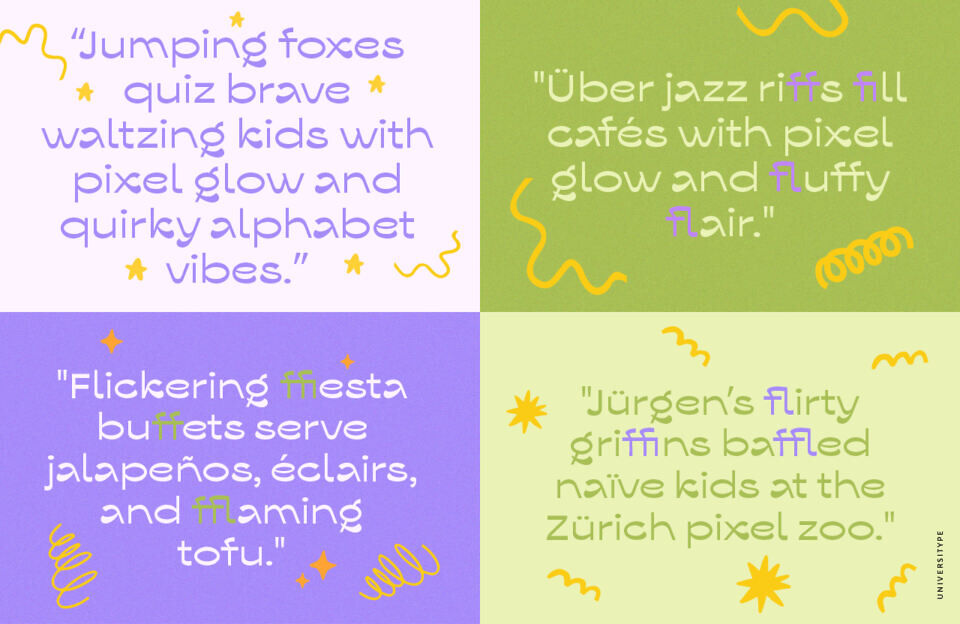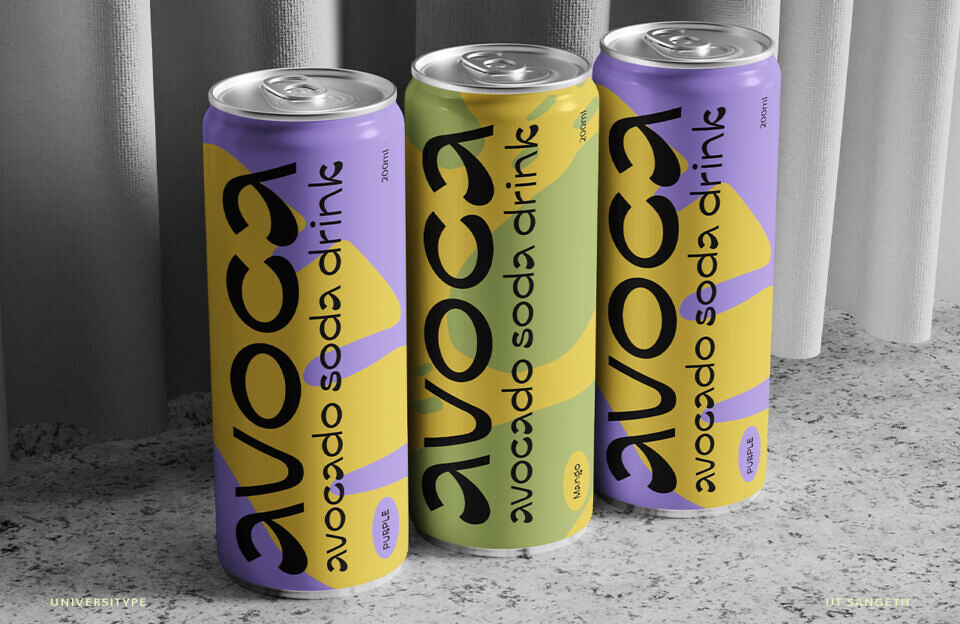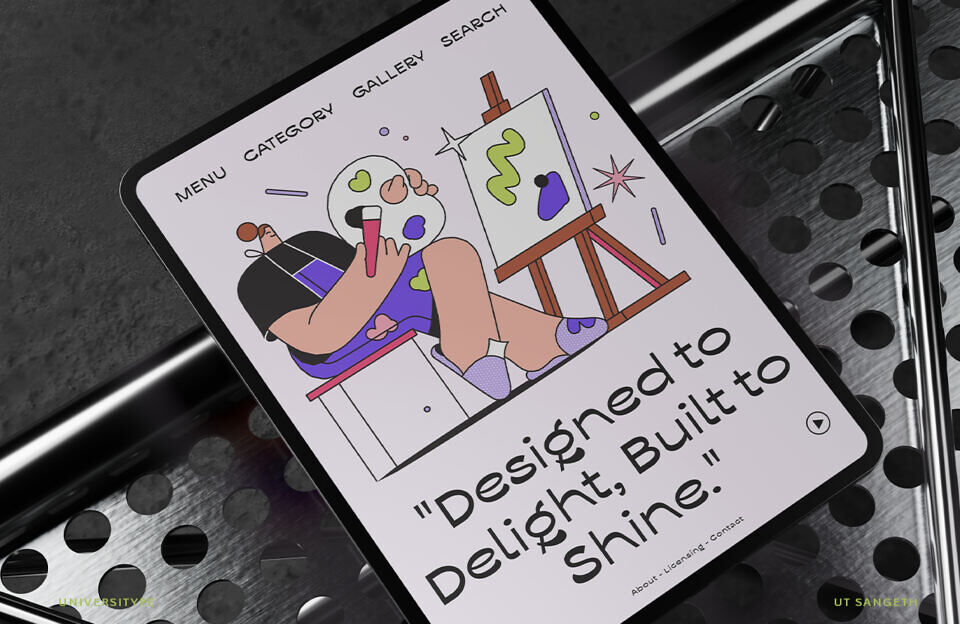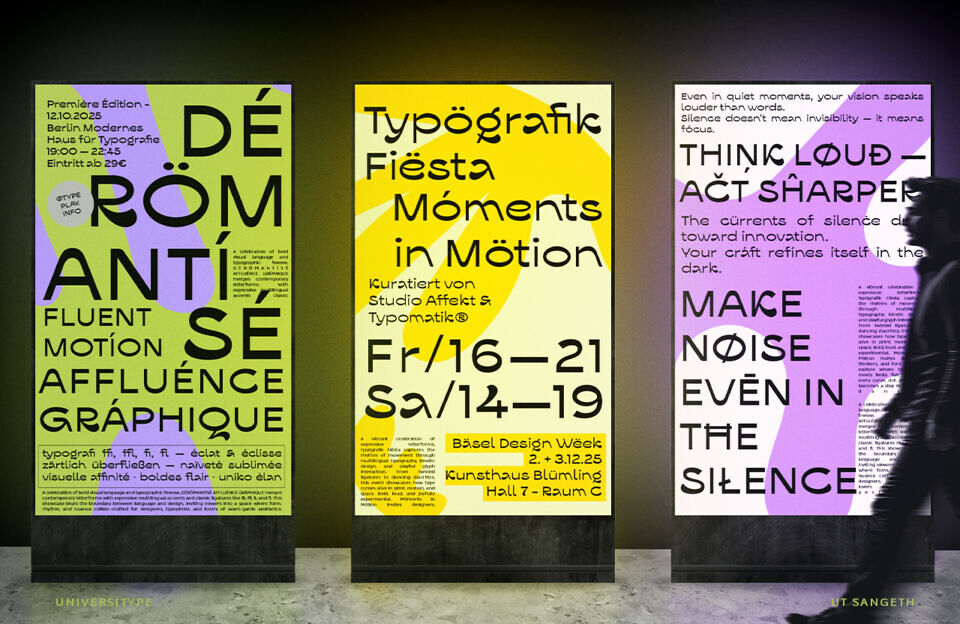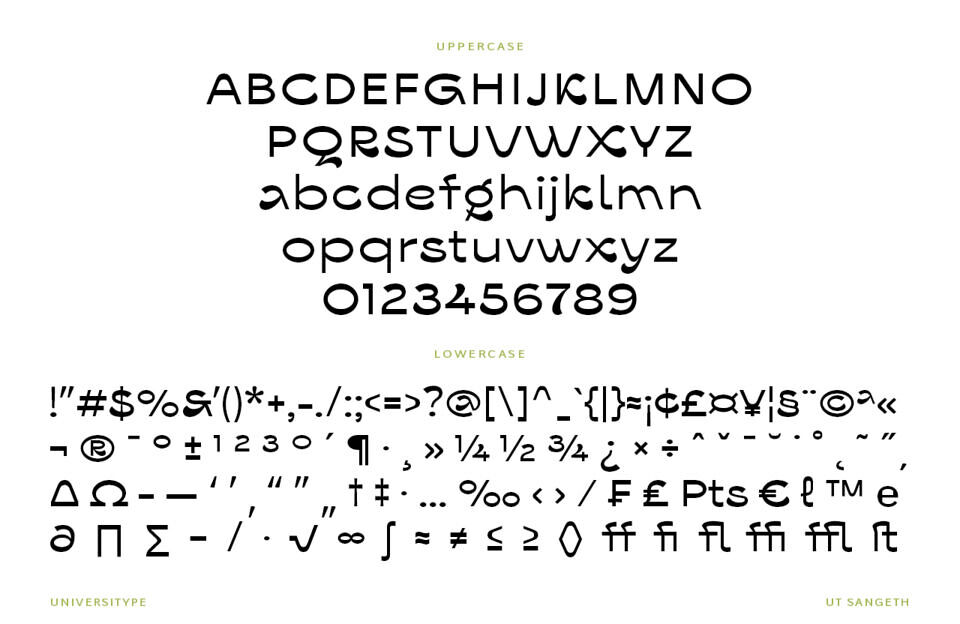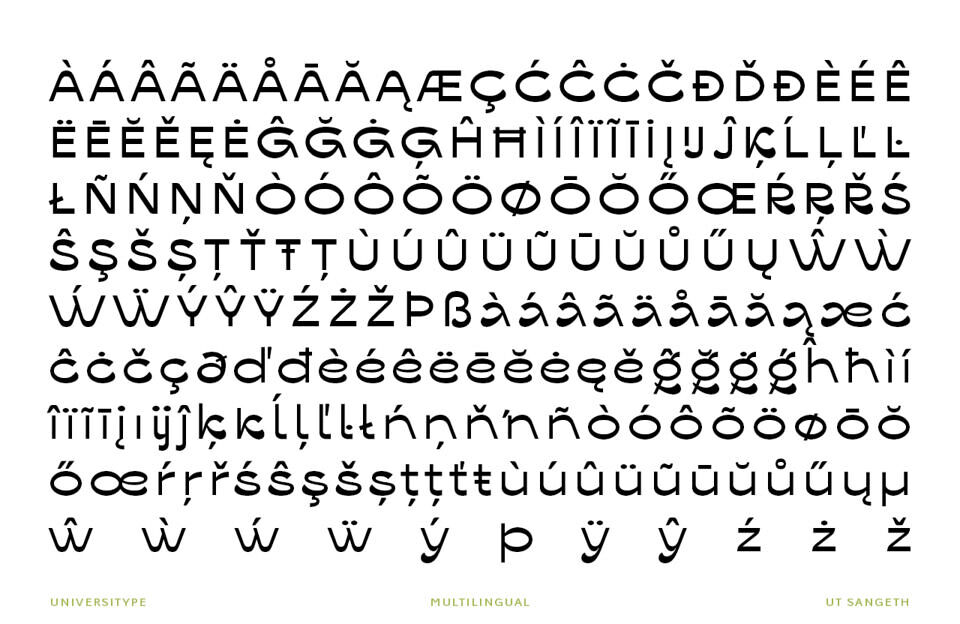
UT Sangeth is a modern, playful display typeface with a distinctively rounded, soft geometric structure and quirky character details.
It combines a childlike whimsy with a clean, futuristic edge, making it both approachable and stylish. Perfect for grabbing attention and adding a unique personality to your designs.